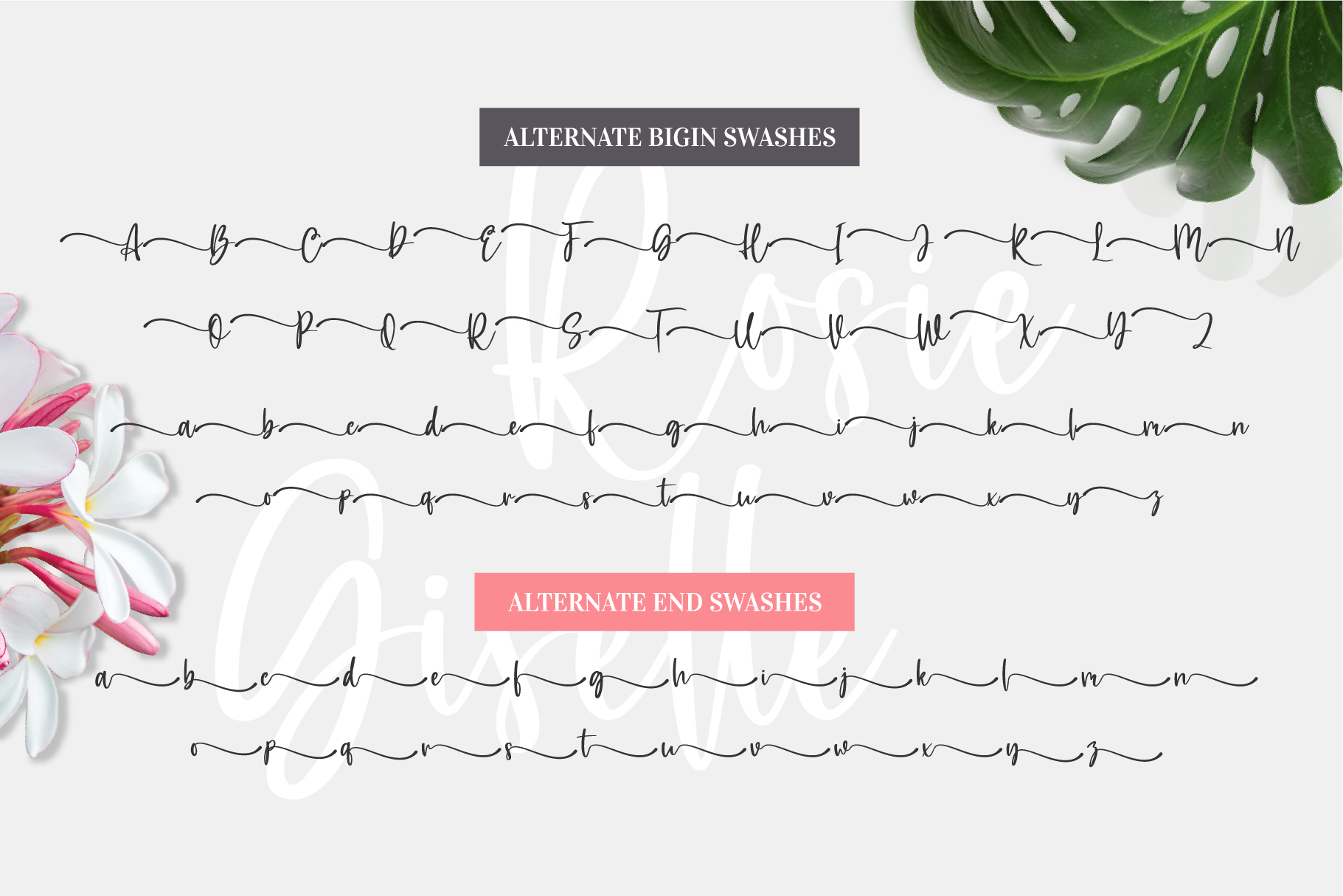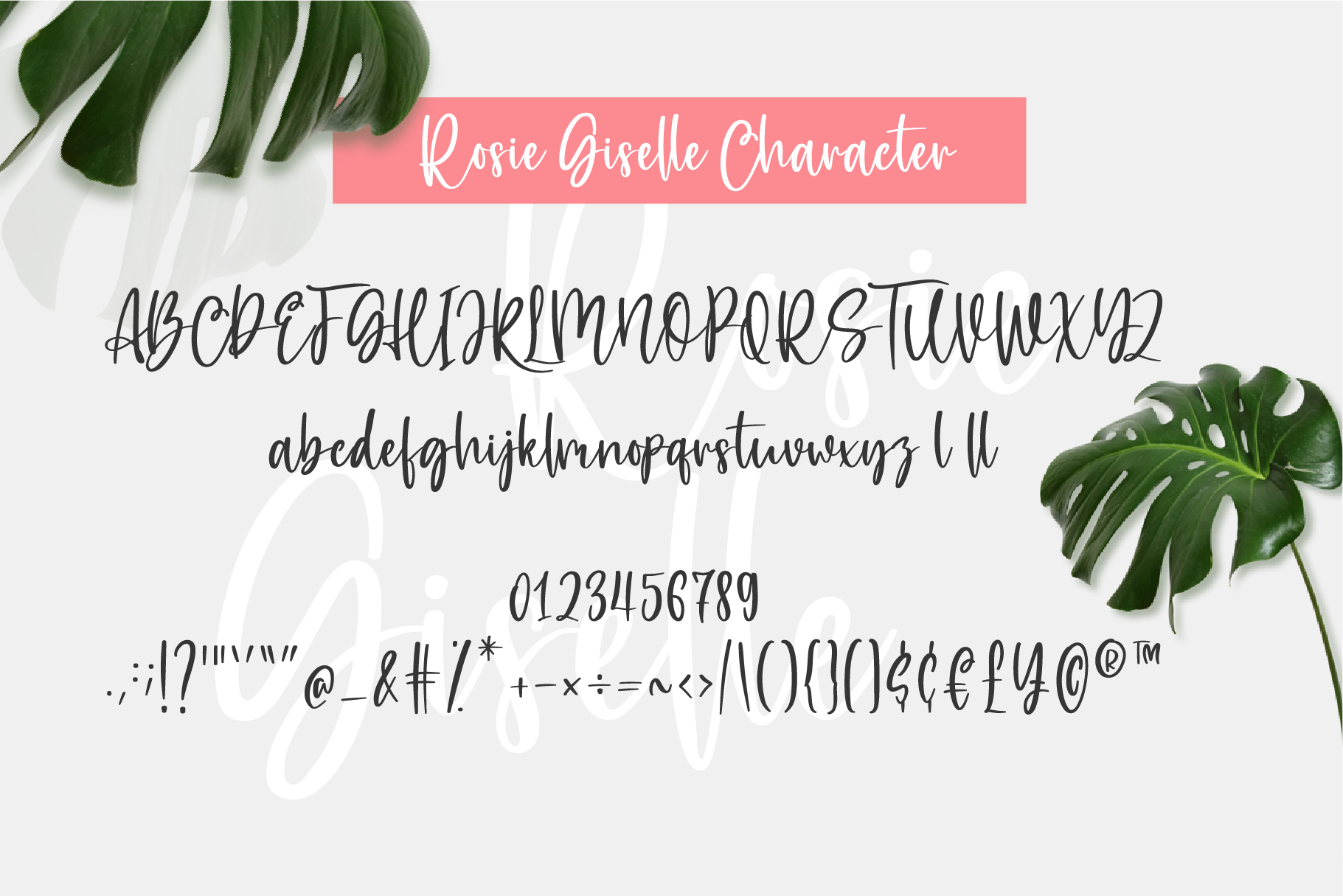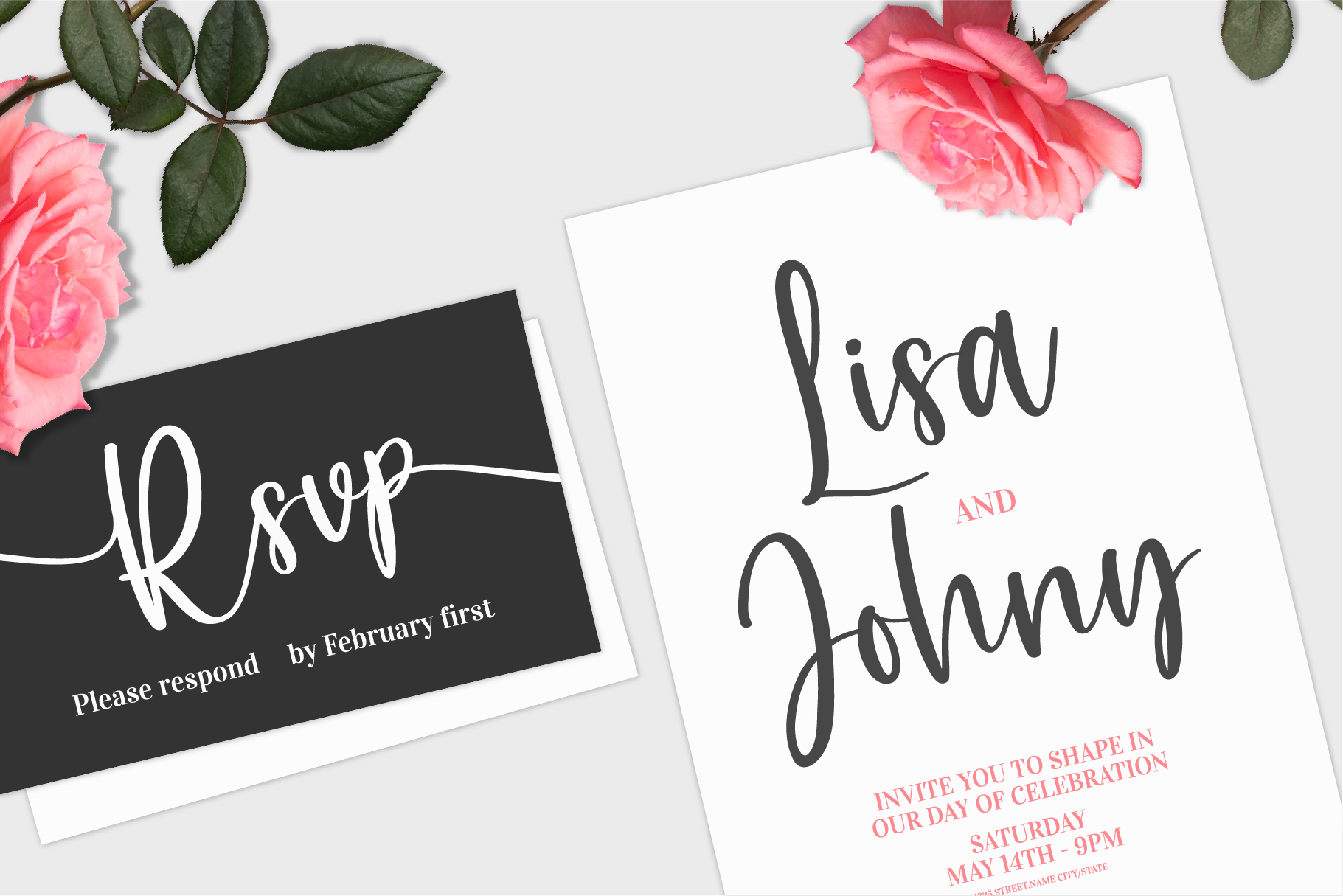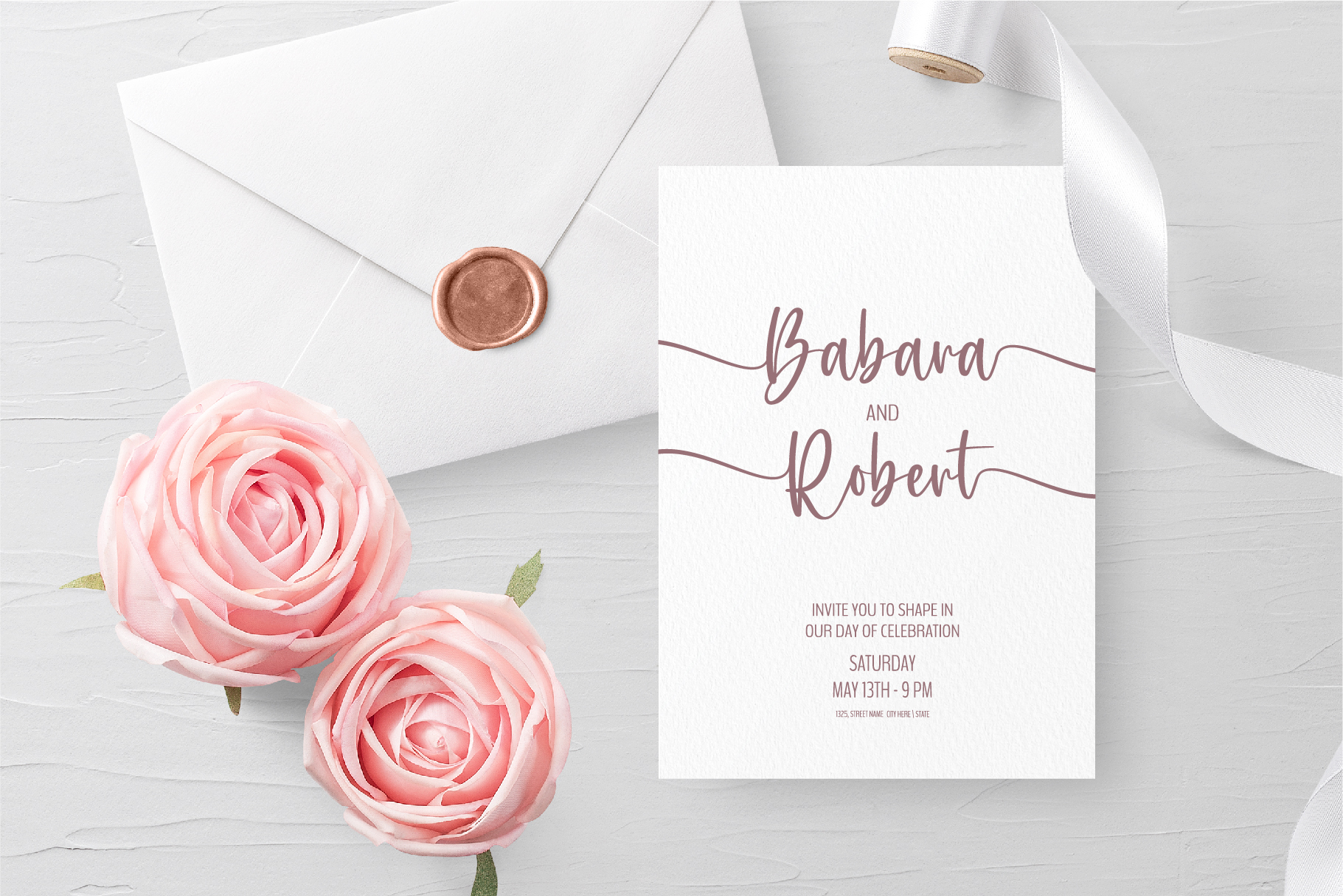
Rosie Giselle Font feels equally delicate and refined. It looks lovely on wedding invitations, thank you cards, quotes, greeting cards, logos, business cards, and every other design which needs a customized touch. This font is PUA encoded which means you can access all of the glyphs and swashes with ease!